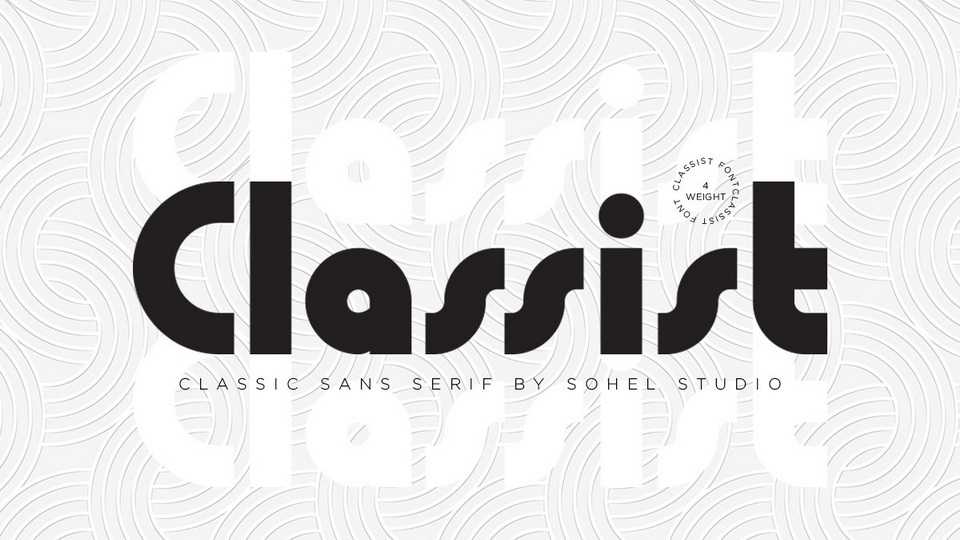
Download Classist Sans font, simple, wavy and chic display typeface. With its bold look Classist Sans will elevate a wide range of crafting ideas, from posters, to branding, labels and much more.
Designer: Sohel Studio